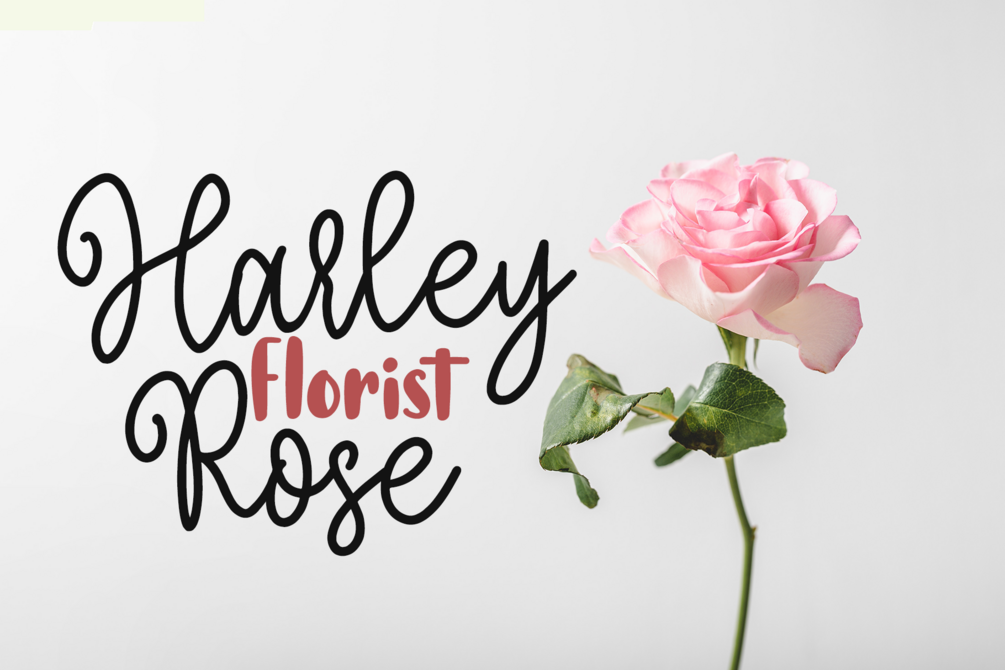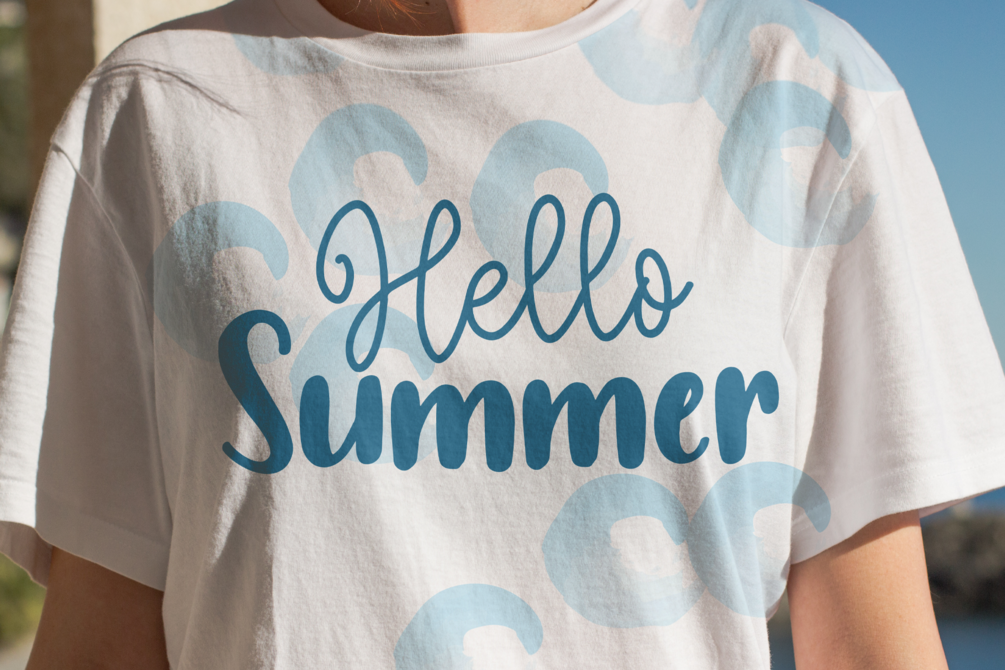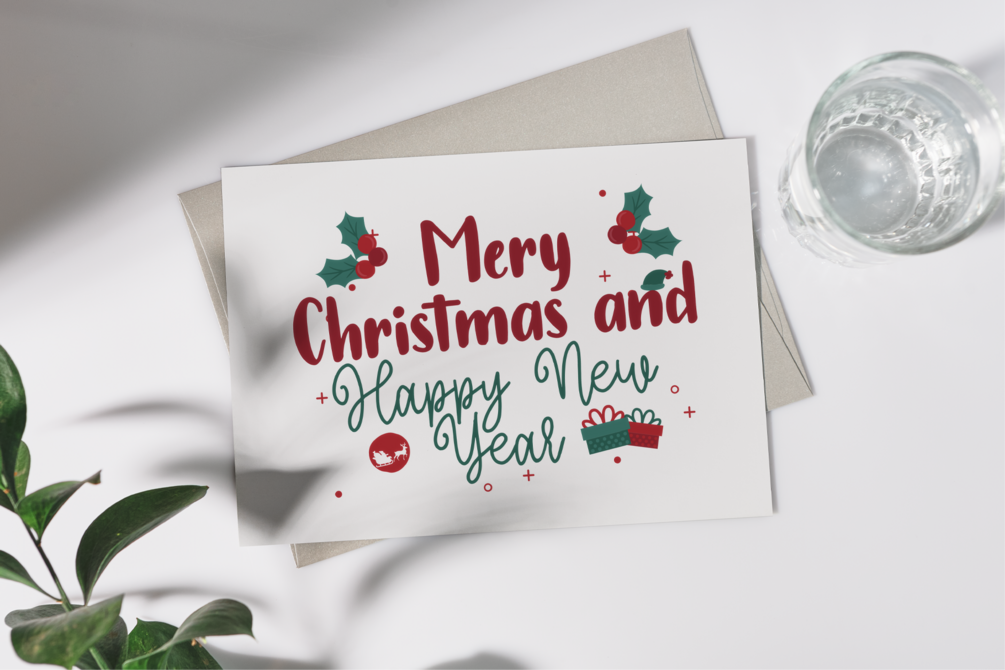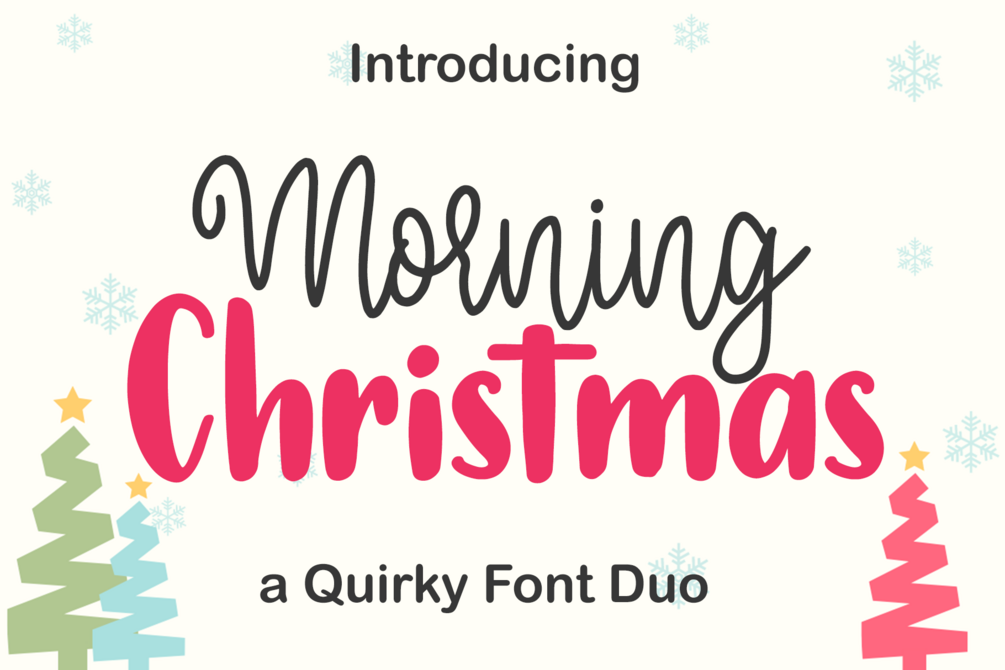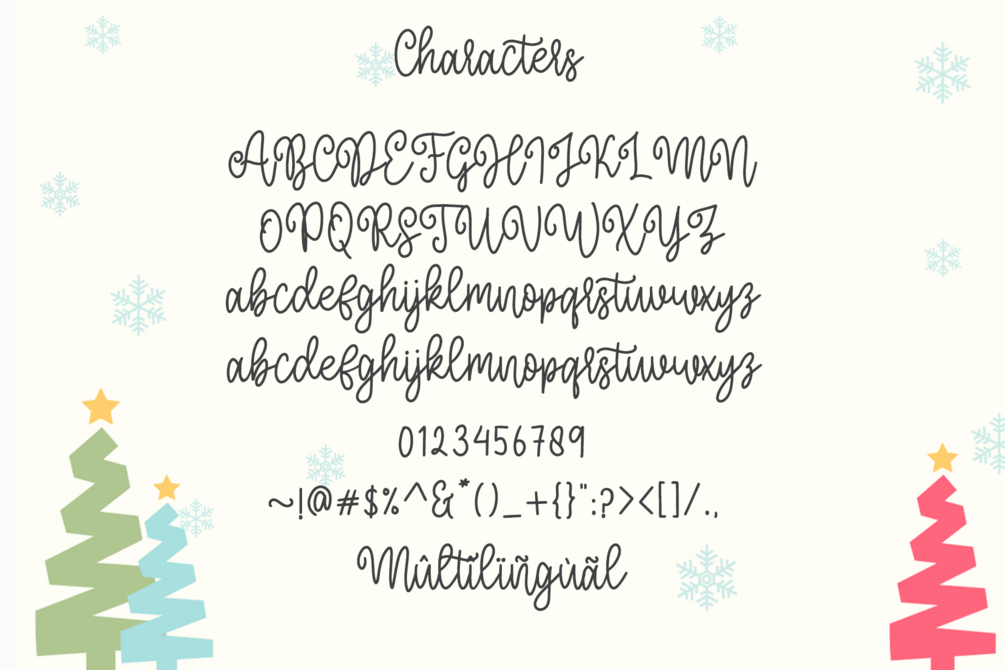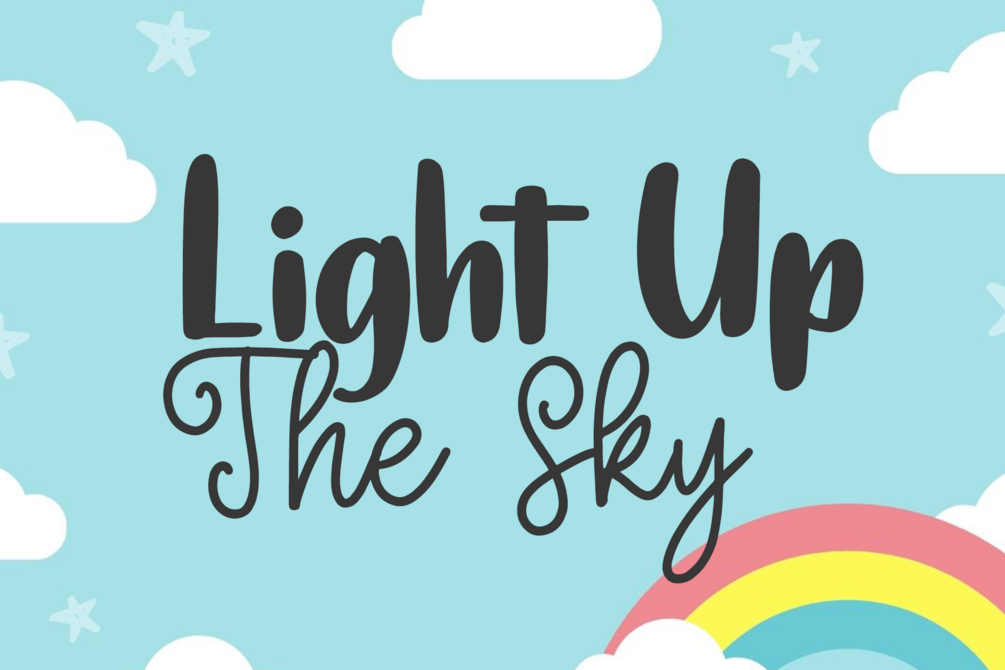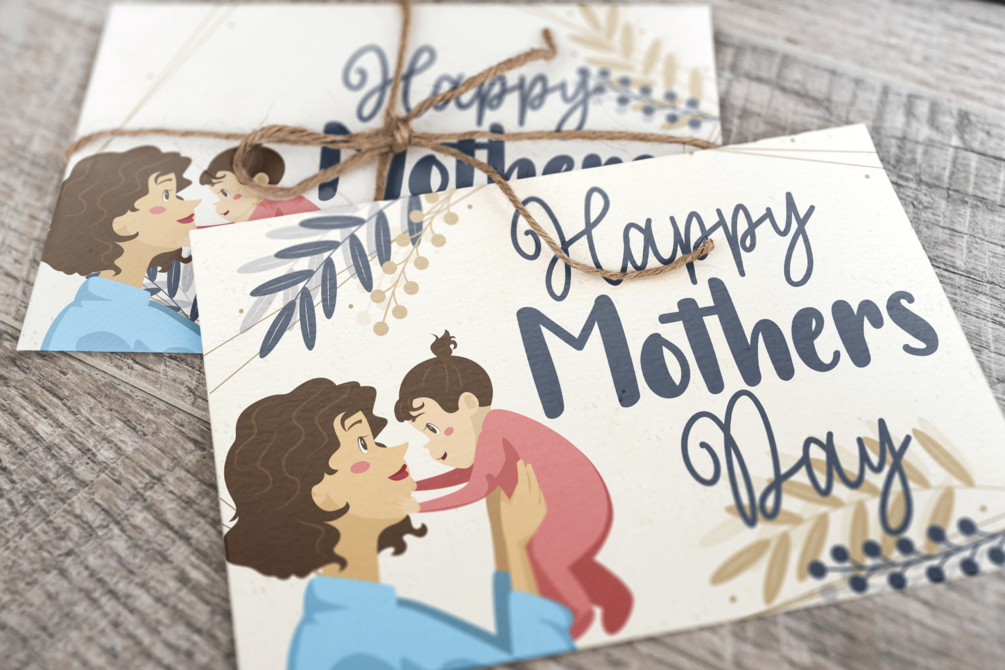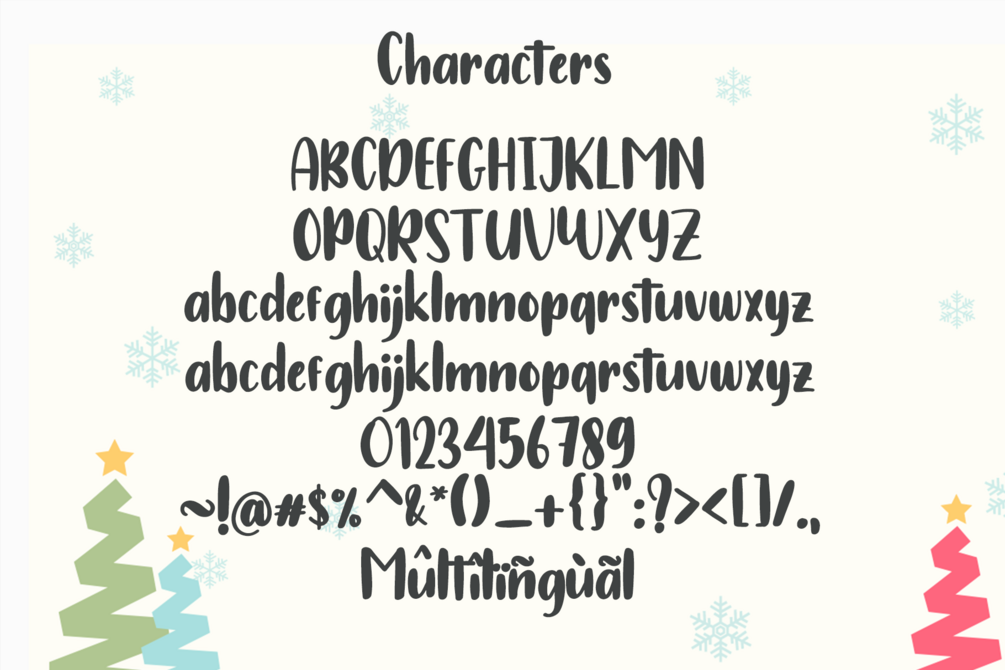
Morning Christmas
Morning Christmas is an elegant and dainty font duo featuring a handwritten script paired with a clean sans serif. This original combination brings sophisticated charm and versatility to any design β€” perfect for Christmas cards, wedding invitations, stationery, letterheads, titles, branding, holiday quotes, packaging, and more.
• Ligatures & Alternates
• Multilingual Support